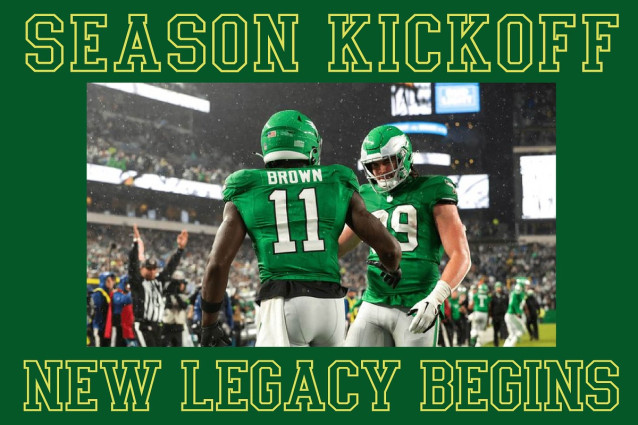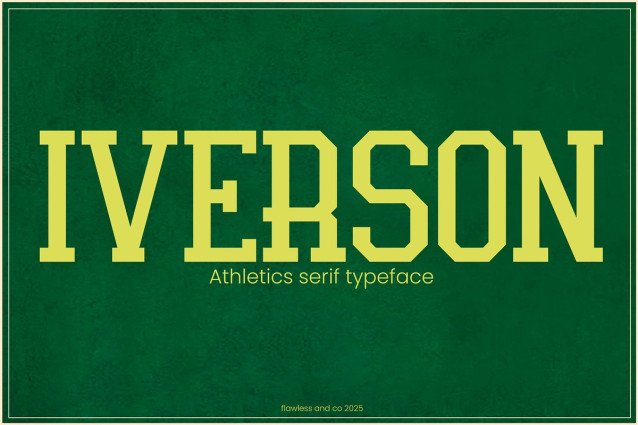
Iverson Font
Iverson Font is a bold, confident serif typeface inspired by classic sports lettering and collegiate traditions. With its strong lines, sharp serifs, and clean construction, Iverson is perfect for projects that need to convey power, pride, and performance. Whether you’re designing for a varsity team, sportswear brand, or retro-inspired branding, Iverson delivers an all-American athletic feel with modern polish.